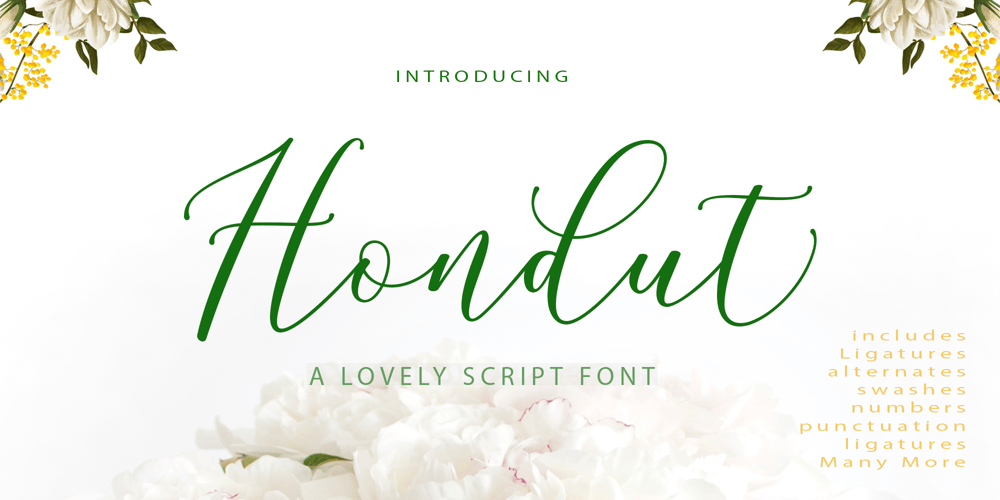
Hondut
Hondut font
Hondut Font Family was designed by khaidir and published by Gatype. Hondut contains 2 styles and family package options. Hondut Script is a decorative, cursive script font characterized by its elegant, flowing strokes. The design of this font typically mimics handwritten or calligraphic styles, with smooth curves and artistic flourishes on many of the letters. It’s ideal for projects that need a sophisticated or stylish touch, such as wedding invitations, branding, or logo design.